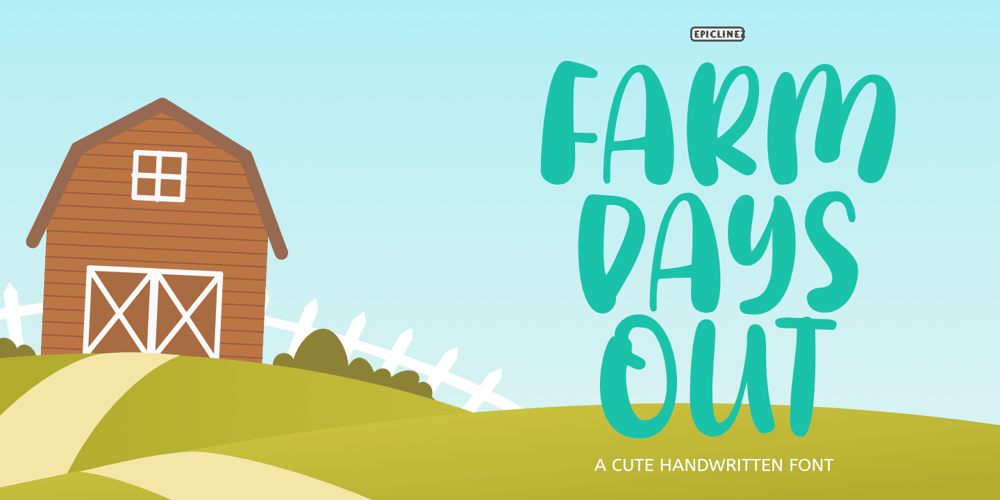
Farm Days Out
Farm Days Out font
Farm Days Out Font Family was designed by Aldy Sidik and published by Epiclinez. Farm Days Out contains 1 styles and family package options. Farm Days Out is a cute and playful font. Suitable for your crafting projects.